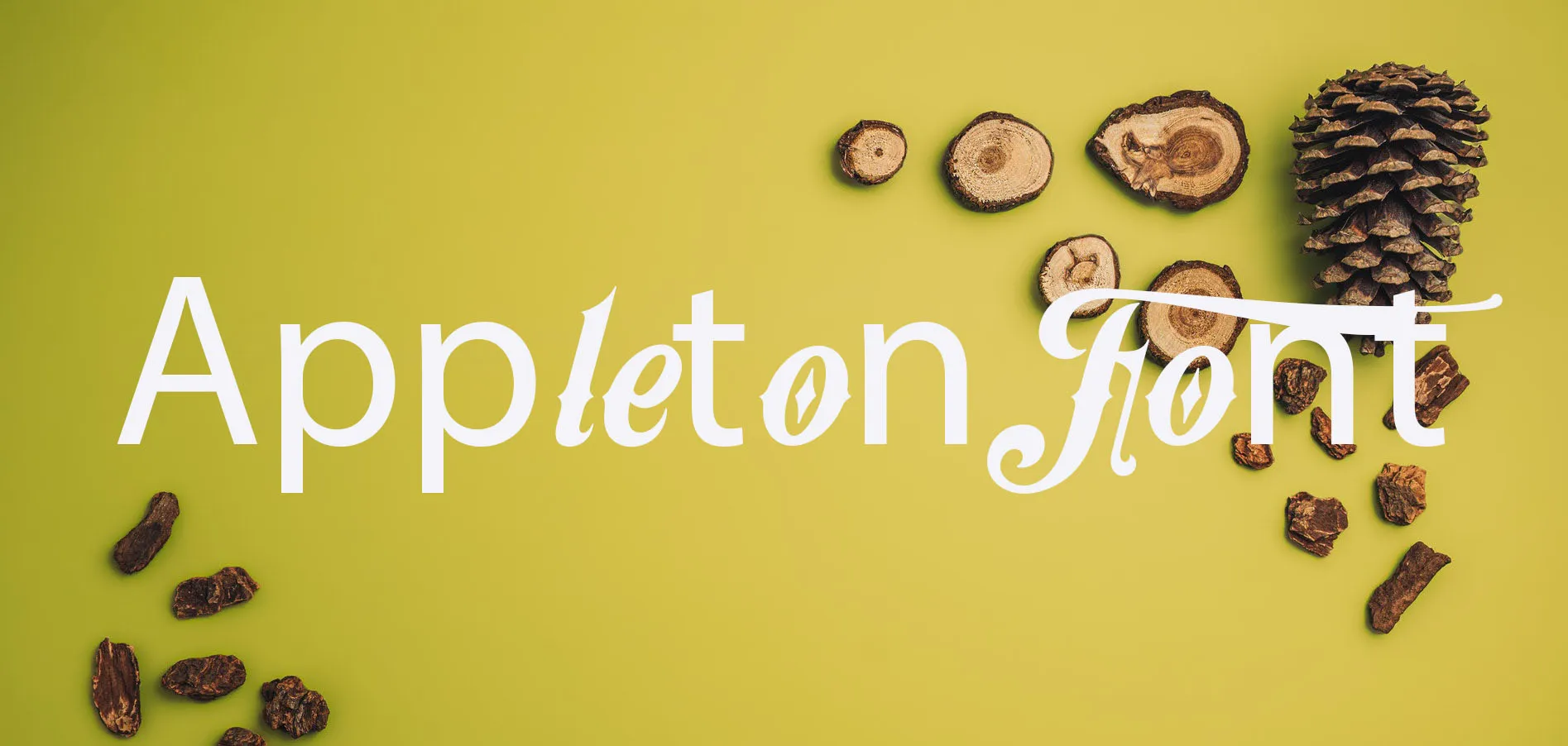
Appleton is a part of the Fancy typeface family, crafted by Spencer & Sons Co. It’s especially popular for use in website headers but also excels in print projects. Appleton Font is notably prevalent on MAC devices.
This font family has been always an Ideal font of the world’s designers and was also encouraged by the generations. This typeface contains 3 weights like Regular, Bold, and Italic as well as different alternates, stylistics, swashes, and multilingual aid, which can provide the best results when used with the pairing of Leafy Brush Font.
Appleton Font